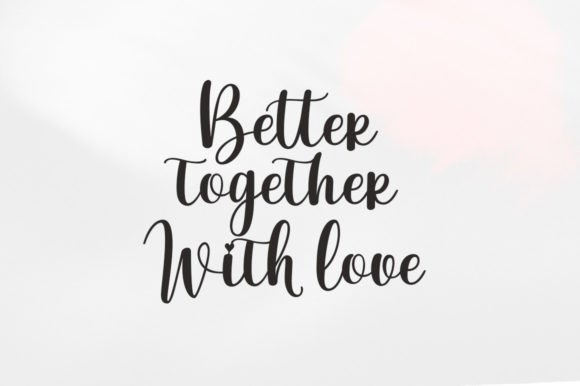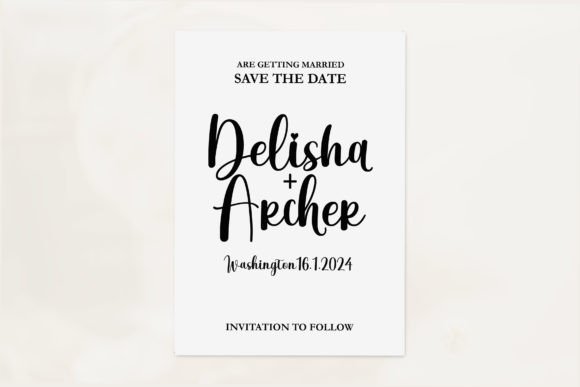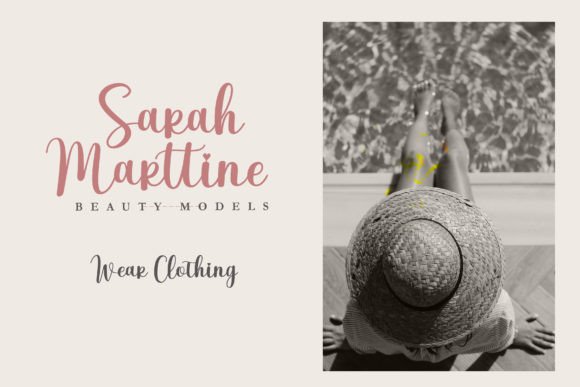
Introduction to Hello Sutshy Font
As you’re brainstorming ideas for your next creative project, have you ever found yourself daydreaming about the perfect font to capture the essence of your design? Maybe it’s a playful script to add a touch of whimsy or a elegant sans-serif to convey sophistication. For designers seeking a unique and high-quality font, we’re excited to introduce you to the Hello Sutshy Font – a beautiful, hand-crafted script font that’s sure to elevate your projects.
With its transparent background and free download availability, the Hello Sutshy Font has become a go-to design resource for creatives looking to add a personal touch to their work. Whether you’re working on a New Year’s project, product design, craft, invitation, or personalization, this font is the perfect choice to make your design stand out.
Key Features of Hello Sutshy Font
- High-quality, professional font designed for creative projects, ideal for use in digital design and printing.
- Features a transparent background, allowing for seamless integration with various design elements.
- Unique characteristics include elegant and modern typography, making it perfect for branding and marketing materials.
Honest Review: Hello Sutshy Font
I recently had the chance to work with the Hello Sutshy Font on a creative project and was pleasantly surprised by its performance. As a designer, I’m always on the lookout for high-quality design resources that can elevate my work and make it stand out.
One of the standout features of the Hello Sutshy Font is its unique and playful design style. The font is perfect for creating a fun and lighthearted atmosphere, making it ideal for projects that require a creative and whimsical touch. I also appreciated the fact that the font is available for free download, making it an accessible design resource for designers of all levels.
Here are some of the things that work well with the Hello Sutshy Font:
- ✨ Unique and playful design style
- ✨ High-quality design that is perfect for creative projects
- ⚠️ Limited character set, which may not be suitable for long-form text
- ⚠️ May not be as versatile as other fonts for more formal or professional projects
Overall, I was impressed with the Hello Sutshy Font and would definitely consider using it on future projects. While it may have some limitations, its unique design style and high-quality performance make it a valuable addition to any designer’s toolkit.
Tips for Getting the Most Out of the Hello Sutshy Font
For the best results, use the Hello Sutshy Font on a transparent background to create a clean and modern look. You can also experiment with different font sizes and styles to create a unique design. Additionally, consider pairing the font with other high-quality design resources to create a cohesive look.
The Hello Sutshy Font is a versatile design resource that can be used in a variety of creative projects, including social media graphics, flyers, and business cards. It’s also a great choice for designers looking for a free, high-quality font to use in their designs.